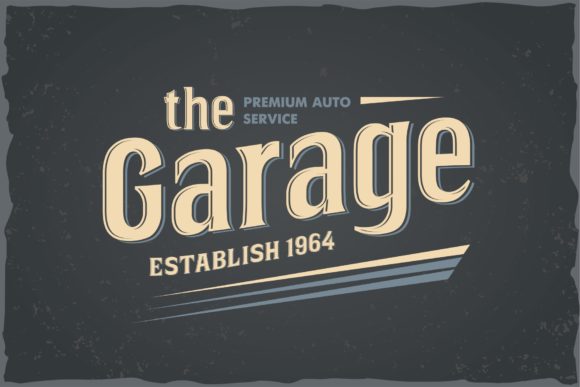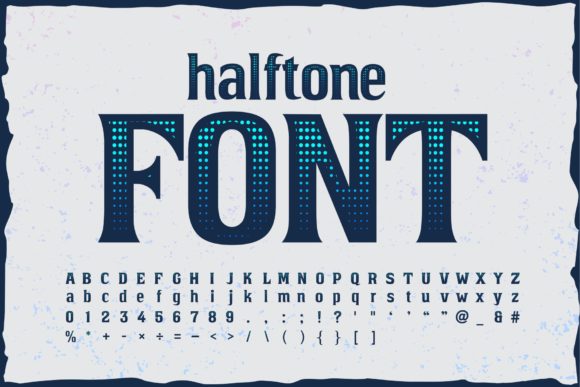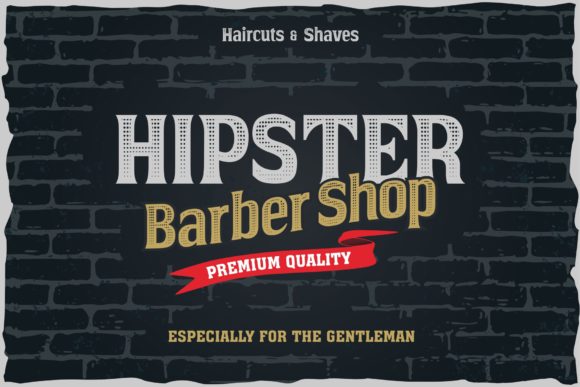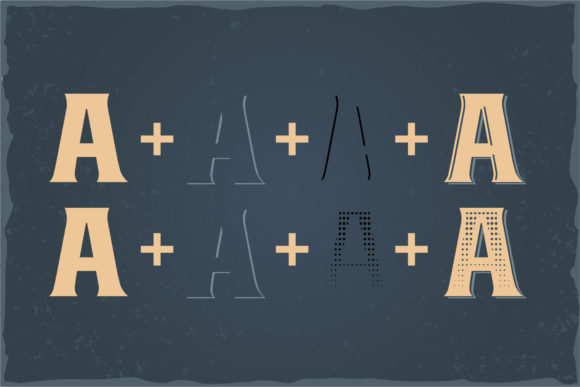
Give Your Designs a Taste of the Past with the Bourbon Font
Have you ever been scrolling through your favorite design inspiration board and stumbled upon a vintage advertisement that instantly makes you feel like you’re sipping on a fine whiskey on a warm summer evening? That’s exactly the kind of nostalgic magic the Bourbon Font can bring to your designs.
This stylish display font is crafted to give your headlines and logotype projects a touch of confidence and sophistication. With its vintage vibe, the Bourbon Font is perfect for adding a dash of personality to your designs, from retro-themed websites to classic advertising campaigns. Whether you’re a seasoned designer or just starting out, the Bourbon Font is a valuable addition to your toolkit, offering endless possibilities for creative expression.
- Unique Characteristics: The font features a unique blend of modern and vintage elements, making it perfect for designs that require a touch of sophistication and elegance.
Bourbon Font Review
Bourbon Font is a unique and elegant typeface that has a lot to offer. Here are some of its strengths:
- ✨ Distinctive flair: Bourbon Font has a charming, hand-drawn feel that sets it apart from more traditional fonts.
- ✨ Versatility: This font can be used in a variety of contexts, from formal invitations to casual blog posts.
- ✨ High-quality design: The font’s designer has put a lot of thought into its design, resulting in a polished and professional look.
- ⚠️ Limited legibility: At smaller font sizes, Bourbon Font can be difficult to read, especially for those with vision impairments.
- ⚠️ Not suitable for body text: Due to its decorative nature, Bourbon Font is best used for headings and titles rather than large blocks of text.
Overall, I would recommend Bourbon Font for designers who want to add a touch of elegance and whimsy to their projects. While it may not be suitable for every use case, its unique design and high-quality craftsmanship make it a valuable addition to any font collection.
Bourbon Font is ideal for:
- Creating a vintage or rustic feel in your designs.
- Adding a touch of elegance to your typography.
- Designing packaging, labels, or other branding materials.